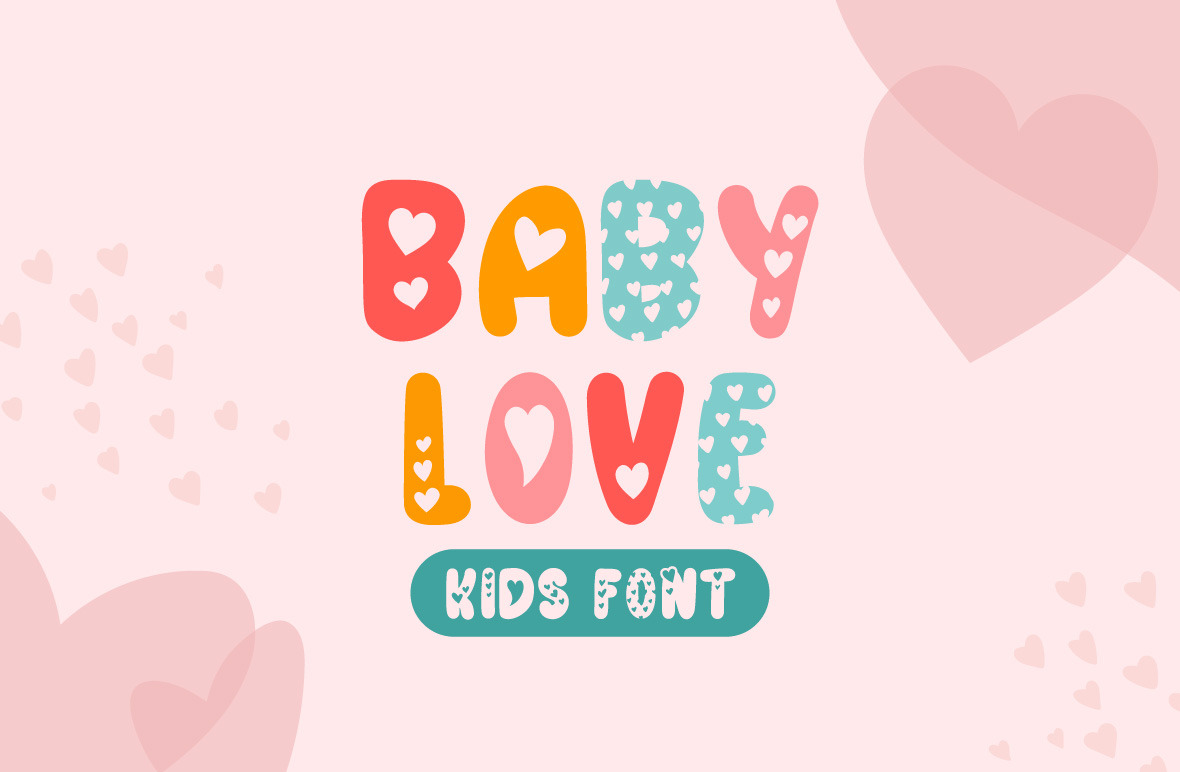
Baby love - kids font
Baby Love is a cute and quirky display font. Whether you’re using it for crafts, digital design, presentations, or making greeting cards, this font has the potential to become your favorite go-to font, no matter the occasion!